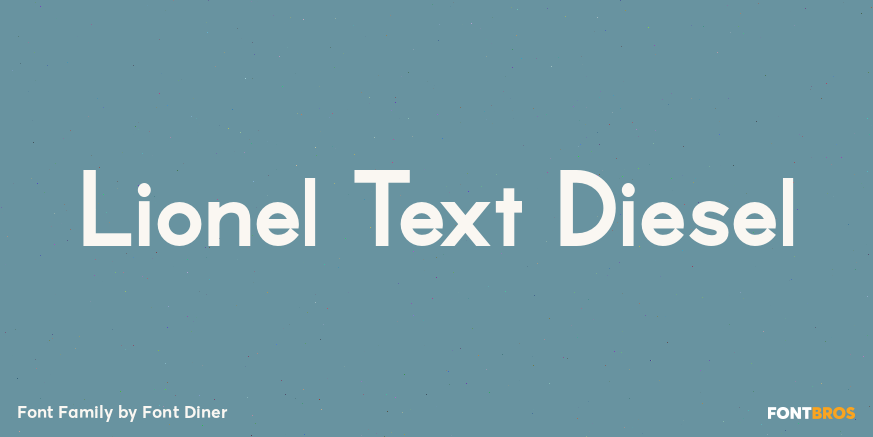
HomeFont BrosArt Deco (1910-1935)Lionel Text Diesel Art Deco (1910-1935)Sans SerifRetro (1936-1965) Lionel Text Diesel FacebookXPinterestWhatsApp 1 of 1 About Lionel Text Diesel Take this 1940s inspired sans-serif for a spin on the Short Line RR in its biggest and boldest weight!  DOWNLOAD ON FONT BROSThis font is sold and delivered by Font Bros. Font Canyon may earn a commission if you buy through this link. People also explored Charlitta Font Kashmeres Font Mooners Font Sicarios Font Mataram Brush Font Candle Light Font Monday Grace Font Matryo Variable Surf Safari 452 0 TagsLionel Text Diesel Font Previous articlePoem ScriptNext articleKatzenjammer LEAVE A REPLY Cancel reply Comment: Please enter your comment! Name:* Please enter your name here Email:* You have entered an incorrect email address! Please enter your email address here Website: Save my name, email, and website in this browser for the next time I comment. Personal Use Free 5cent Free Graffiti Personal Use Free Read more about this font Midnight Show Personal Use Free Read more about this font Engine Personal Use Free Read more about this font Omellia Personal Use Free Read more about this font BLOG Free vs Paid Fonts: Why Investing in Premium Fonts Is Worth It Free vs Paid Fonts: Why Premium Fonts Are Worth It in 2025 The debate of free vs paid fonts continues in the design world. While... Free Fonts Risk: Why Free Fonts Can Be Dangerous for Designers Modern Sans-Serif Fonts That Brands Love in 2025 Transform Your Website: Elevate Your Typography with 7 Best Web Font Generators